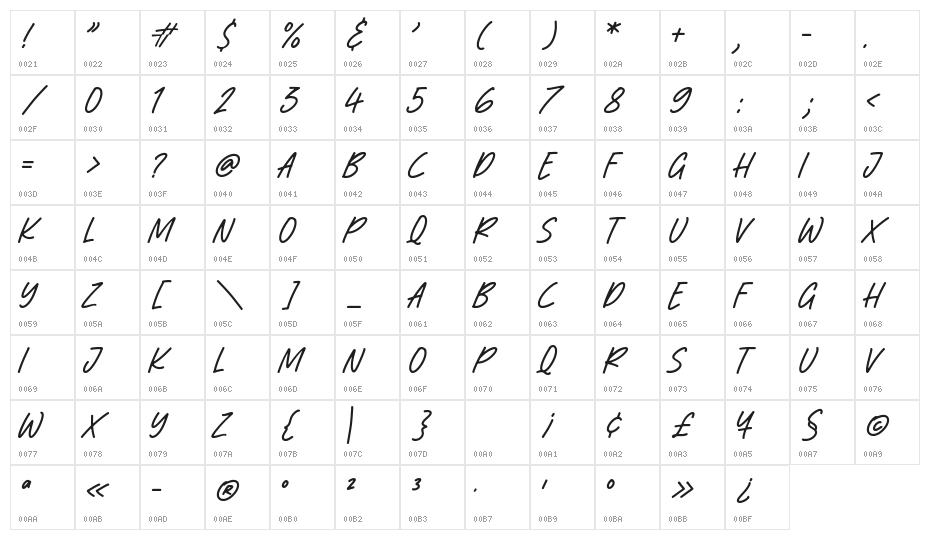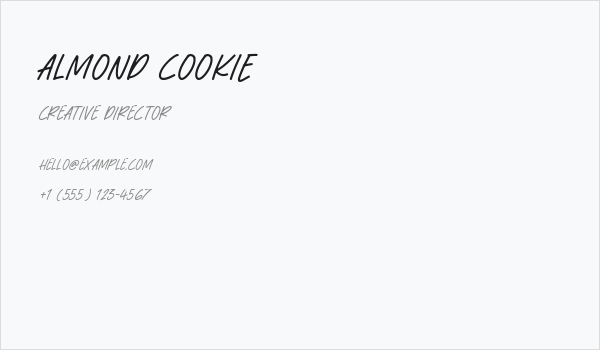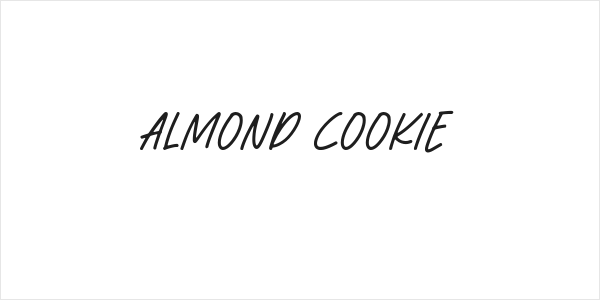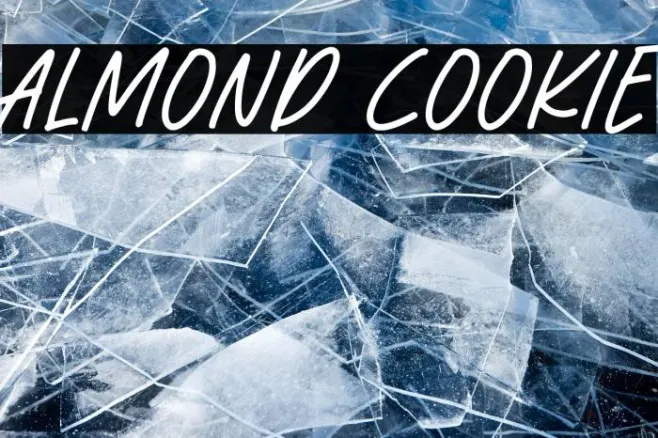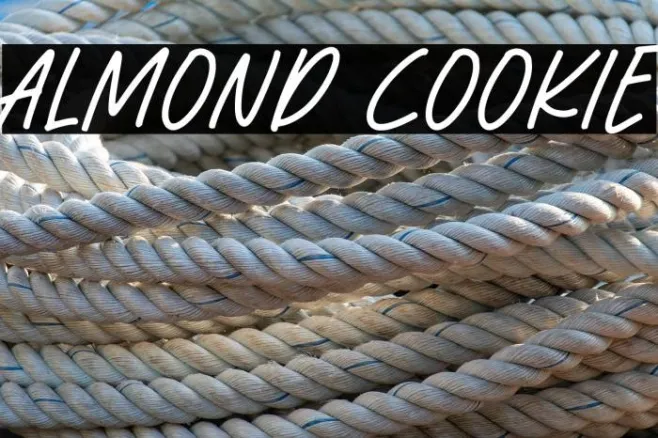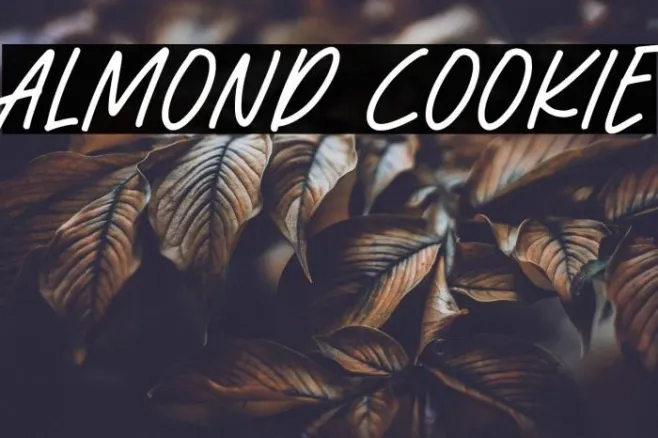
Almond Cookie Font
Almond Cookie Description
This font features a lively and dynamic handwritten style, characterized by its fluid and slightly slanted letterforms. The strokes are smooth and consistent, giving it a casual yet elegant appearance. The uppercase and lowercase letters maintain a cohesive look, with rounded edges and a natural flow that mimics authentic handwriting. The numerals and special characters are crafted with the same attention to detail, ensuring readability and style. This font exudes a friendly and approachable vibe, making it suitable for a variety of creative applications.
| Proposed Projects | Ideal for greeting cards, invitations, personal branding, and social media graphics. |